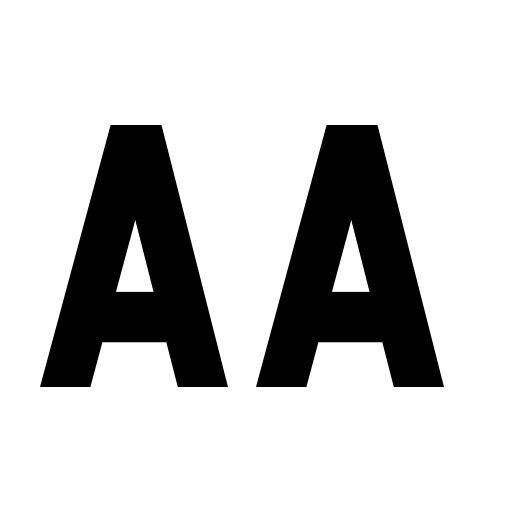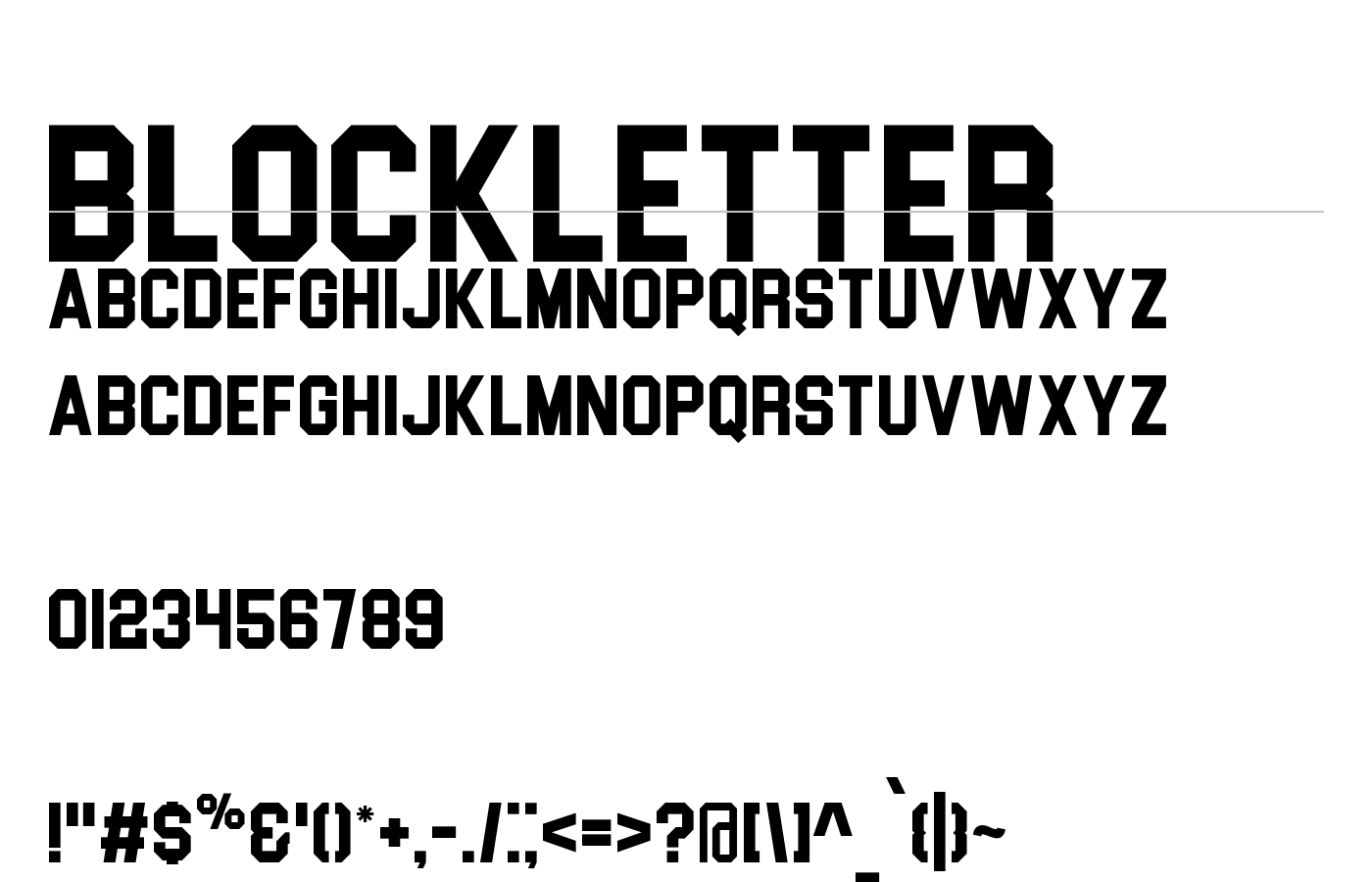
Blockletter is a bold, condensed sans serif font with a strong industrial feel, characterized by its sharp, geometric edges and uniform stroke weight. It offers an all-uppercase style with a modern, impactful look perfect for headlines, posters, and branding that demands attention and a sturdy, confident presence. This font works exceptionally well in designs that require a sense of strength and boldness without sacrificing clarity.
Blockletter Font